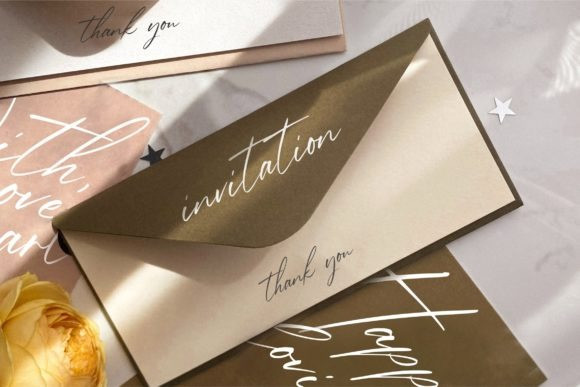
Amatins Handwritten Font
Introducing the elegant Amatins! Amatins is Scrip font, every single letters have been carefully crafted to make your text looks beautiful. With modern script style this font will perfect for many different project ex: photography, watermark, quotes, blog header, poster, wedding, branding, logo, fashion, apparel, letter, invitation, stationery, etc.